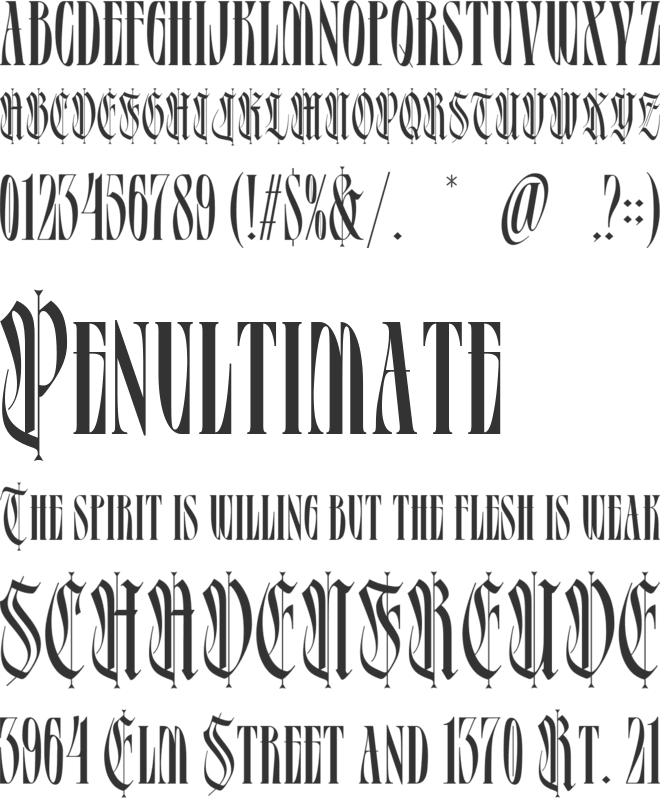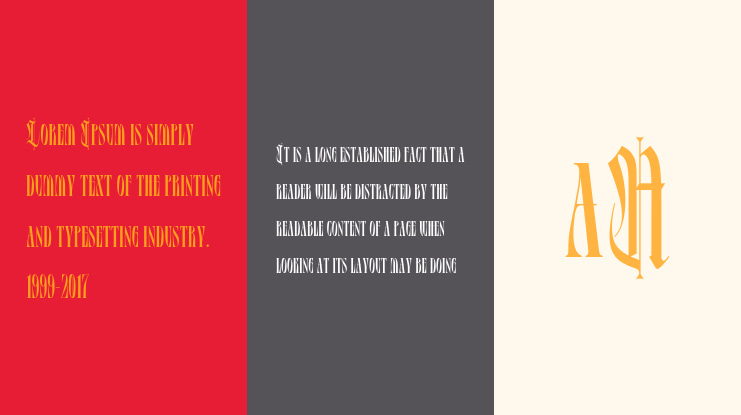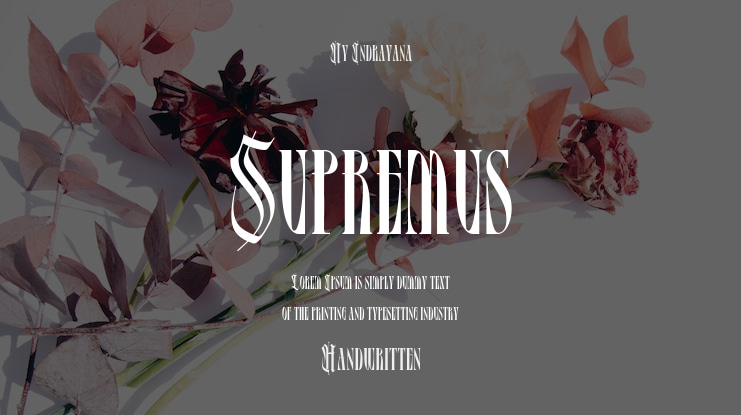
Ny Indrayana
Introducing Supremus Typeface – A Symbol of Power and Majesty
Step into a realm of dark fantasy and medieval elegance with Supremus, a bold and masterful blackletter typeface crafted by Alit Design Studio. Forged in shadow and designed for ultimate visual impact, Supremus features dramatic letterforms, elongated strokes, and distinctive sword-like flourishes that immediately command attention.
Combining traditional gothic character with a highly refined, luxurious aesthetic, this typeface is built for projects that demand a powerful yet sophisticated identity. Whether you are designing epic movie titles, striking streetwear apparel, heavy metal album covers, or commanding brand logos, Supremus delivers strength without surrender.